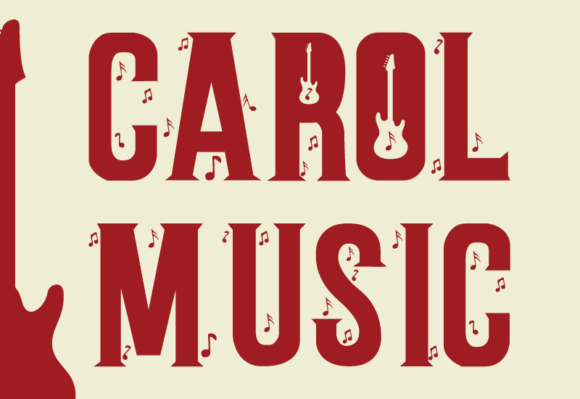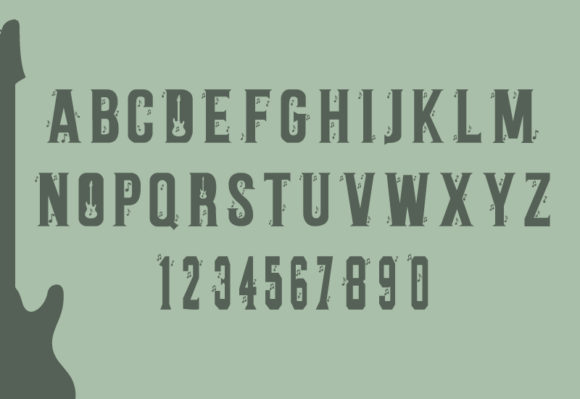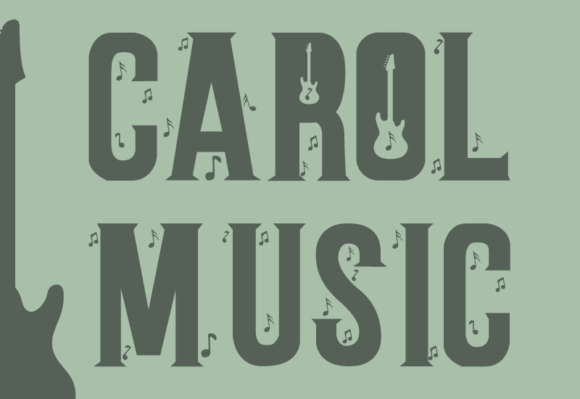
Introduction to Carol Music Font Font
Fonts play a crucial role in design, and the Carol Music Font font is a typeface that brings both character and versatility to any project. Whether you’re working on a branding project, a website, or a print design, the Carol Music Font font offers a unique style that can elevate your work.
Unveiling Carol Music, a meticulously fashioned decorative font.
Crafted with impeccable accuracy, this font carries a minimalist grace, as airy and smooth as a harmonious tune It is the embodiment of precision and elegance, delicately intertwined to set a rhythm to your texts.
Key Features of Carol Music Font Font
Why Choose Carol Music Font Font?
The Carol Music Font font is more than just a typeface – it’s a design tool that helps you communicate your message with style and clarity. Its unique character set and versatile design make it suitable for a wide range of applications, from elegant invitations to bold headlines.
With its carefully crafted letterforms and balanced proportions, the Carol Music Font font ensures readability and visual appeal across all mediums.
What makes Carol Music Font font special?
The Carol Music Font font stands out with its unique design, exceptional readability, and versatility across various design applications.